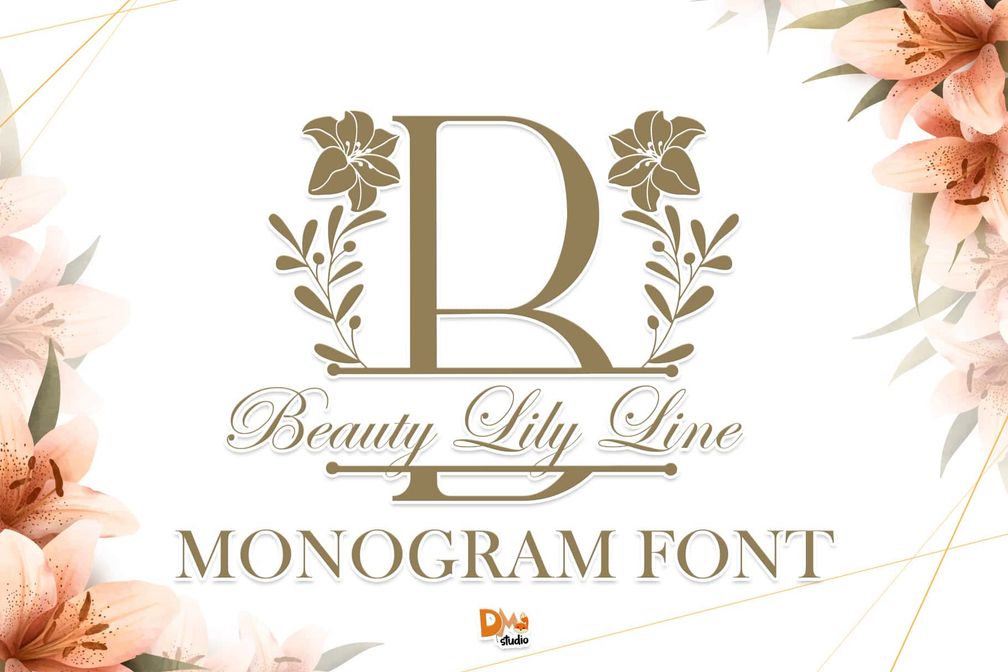
Beauty Lily Line Monogram
Beauty Lily Line Monogram – Elegant & Floral-Inspired Monogram Font
Beauty Lily Line Monogram is a refined and ornamental monogram font featuring delicate lily-inspired floral line art within each letter. Perfect for wedding invitations, luxury branding, personalized stationery, boutique packaging, and artistic projects, this typeface brings an air of grace and sophistication to any design.
• Intricate Lily Floral Line Art: Each letter is adorned with elegant, hand-drawn lily flower details.
• Timeless & Ornamental Aesthetic: A harmonious blend of floral beauty and monogram sophistication.